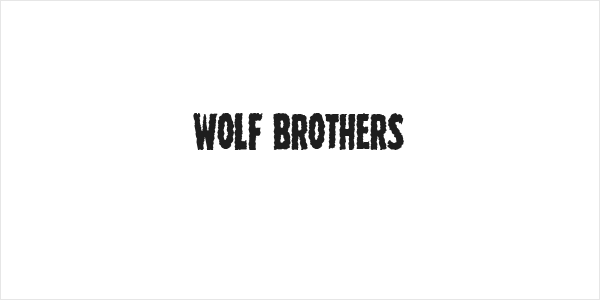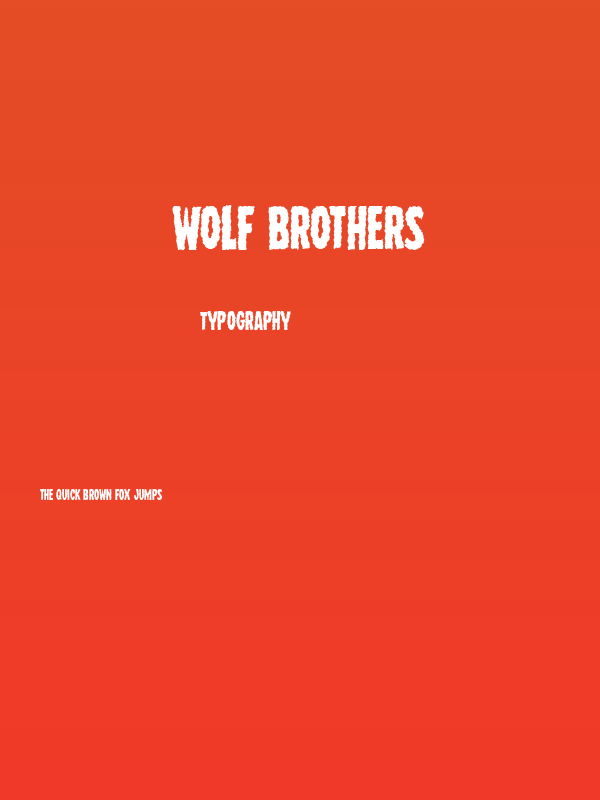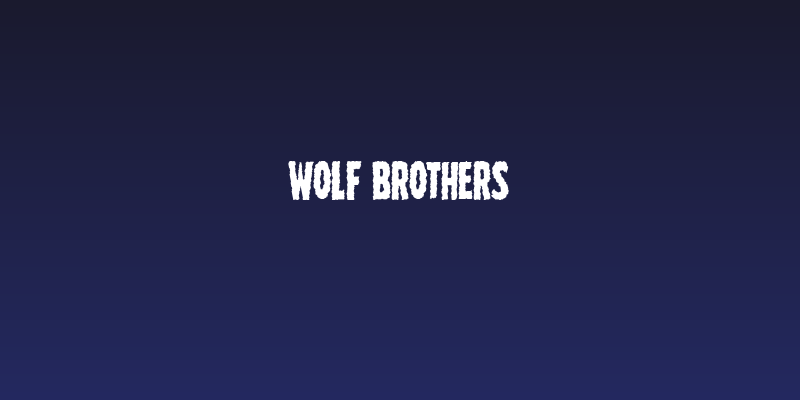
Wolf Brothers Font
Wolf Brothers Description
This font features a rugged, distressed style with a bold and impactful presence. The characters have a rough, textured appearance, reminiscent of worn or eroded surfaces. This design choice gives the font a dynamic and energetic feel, making it suitable for projects that require a strong visual statement. The uppercase and lowercase letters maintain consistent proportions, while the numbers and special characters follow the same distressed aesthetic, ensuring uniformity across all elements.
| Proposed Projects | Ideal for posters, album covers, branding for outdoor or adventure-themed products, and any design that requires a bold, gritty aesthetic. |